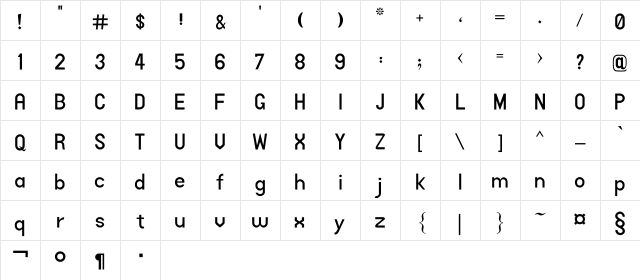
Complete AlFars 18 Aban Regular glyph index. Displaying only characters natively supported by AlFars 18 Aban Regular font.
AlFars 18 Aban is a composed and adaptable typeface that performs quietly and consistently across a wide range of design contexts.